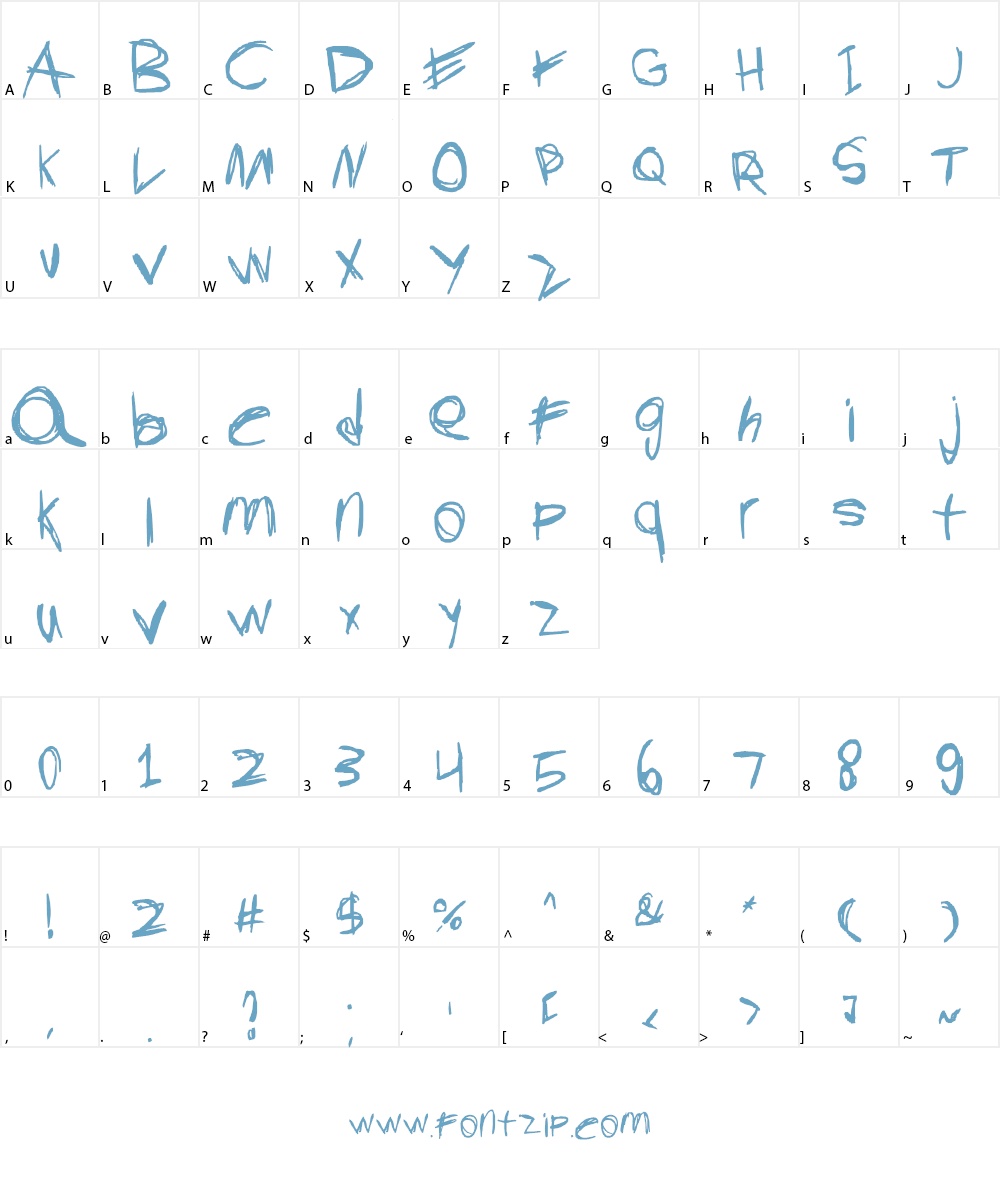
Words carved in a tree....
NOTE: This font was an abandoned project, but I recently found it in my Windows My Font Tool folders. So, I compiled it today, and decided to share it! Hope you enjoy.